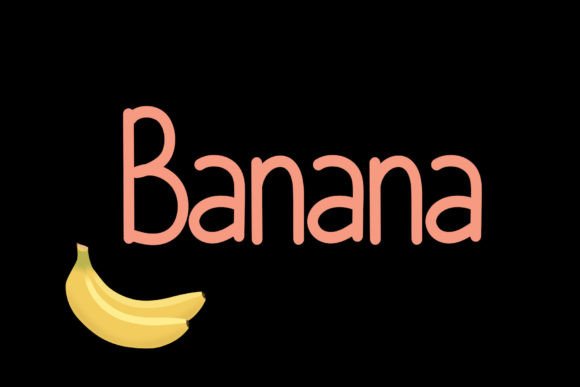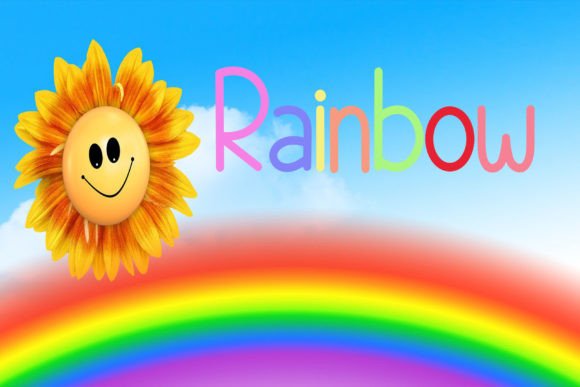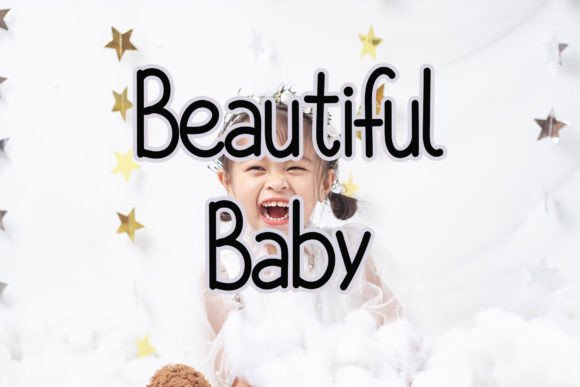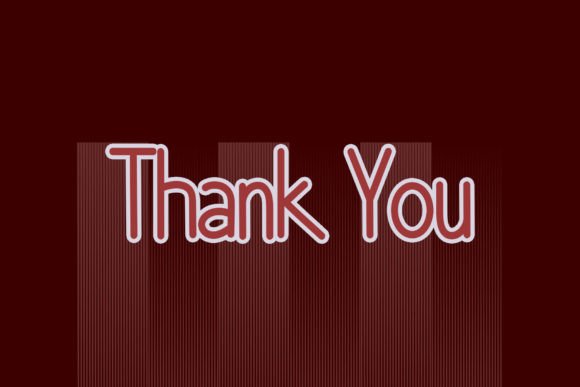
Introducing Family Font: The Ultimate Handwritten Font for Designers and Crafters
Are you tired of using the same old fonts for your designs and crafts? Look no further! Family Font is a simple and neat handwritten font that is perfect for a variety of projects, from digital designs to greeting cards. In this article, we’ll take a closer look at Family Font and explore its features, benefits, and uses.
What is Family Font?
Family Font is a beautiful handwritten font that is designed to be versatile and easy to use. Its simple and neat design makes it perfect for a wide range of projects, including crafts, digital designs, presentations, and more. Whether you’re a designer, crafter, or DIY enthusiast, Family Font is a great addition to your font collection.
Key Features of Family Font
- Handwritten design: Family Font has a warm and personal touch, making it perfect for projects that require a human touch.
- Simple and neat: The font’s simple and neat design makes it easy to read and use in a variety of projects.
- Versatile: Family Font can be used for a wide range of projects, from digital designs to crafts and DIY projects.
Benefits of Using Family Font
So why choose Family Font for your projects? Here are just a few benefits of using this amazing font:
- Adds a personal touch: Family Font’s handwritten design adds a warm and personal touch to your projects, making them stand out from the crowd.
- Perfect for crafts and DIY projects: The font’s simple and neat design makes it perfect for crafts and DIY projects, such as making greeting cards, scrapbooking, and more.
- Great for digital designs: Family Font is also perfect for digital designs, such as presentations, social media graphics, and more.
- Easy to read: The font’s simple design makes it easy to read, even at small sizes.
Uses for Family Font
So what can you use Family Font for? The possibilities are endless! Here are a few ideas to get you started:
- Crafts and DIY projects: Use Family Font to make personalized greeting cards, scrapbook pages, and more.
- Digital designs: Use the font to create presentations, social media graphics, and more.
- Paper crafting: Family Font is perfect for paper crafting projects, such as making cards, gift tags, and more.
- Journaling and scrapbooking: The font’s simple and neat design makes it perfect for journaling and scrapbooking.
Tips for Using Family Font
Here are a few tips for using Family Font in your projects:
- Experiment with different sizes: Family Font looks great at a variety of sizes, so don’t be afraid to experiment to find the perfect size for your project.
- Pair with other fonts: Try pairing Family Font with other fonts to create a unique and interesting look.
- Use for headings and body text: The font’s simple design makes it perfect for both headings and body text.
Family Font is a simple and neat handwritten font that is perfect for a wide range of projects, from crafts and DIY projects to digital designs. Its versatile design and easy-to-use features make it a great addition to any font collection. Whether you’re a designer, crafter, or DIY enthusiast, Family Font is sure to become your go-to font for all your projects.